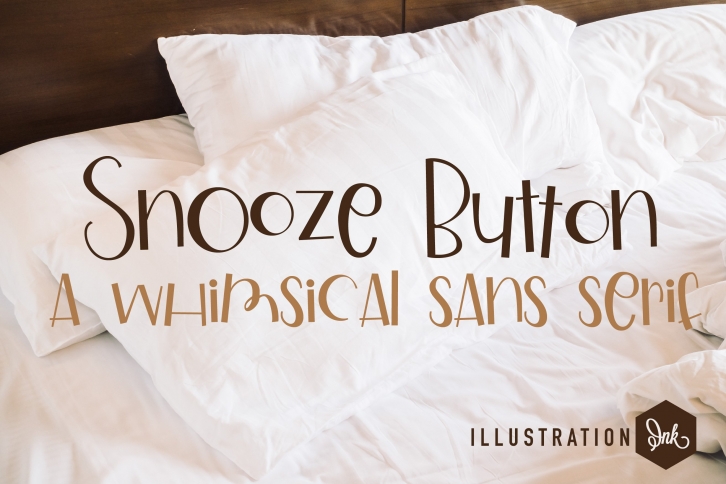
ZP Snooze Button is a trendy and unique font with an authentic style. It was designed by Illustration Ink and it's a great choice for creative people who need such a font. It was released on May 2, 2022 and the file size is 1.81 MB. ZP Snooze Button will add an organic vibe to any design idea!